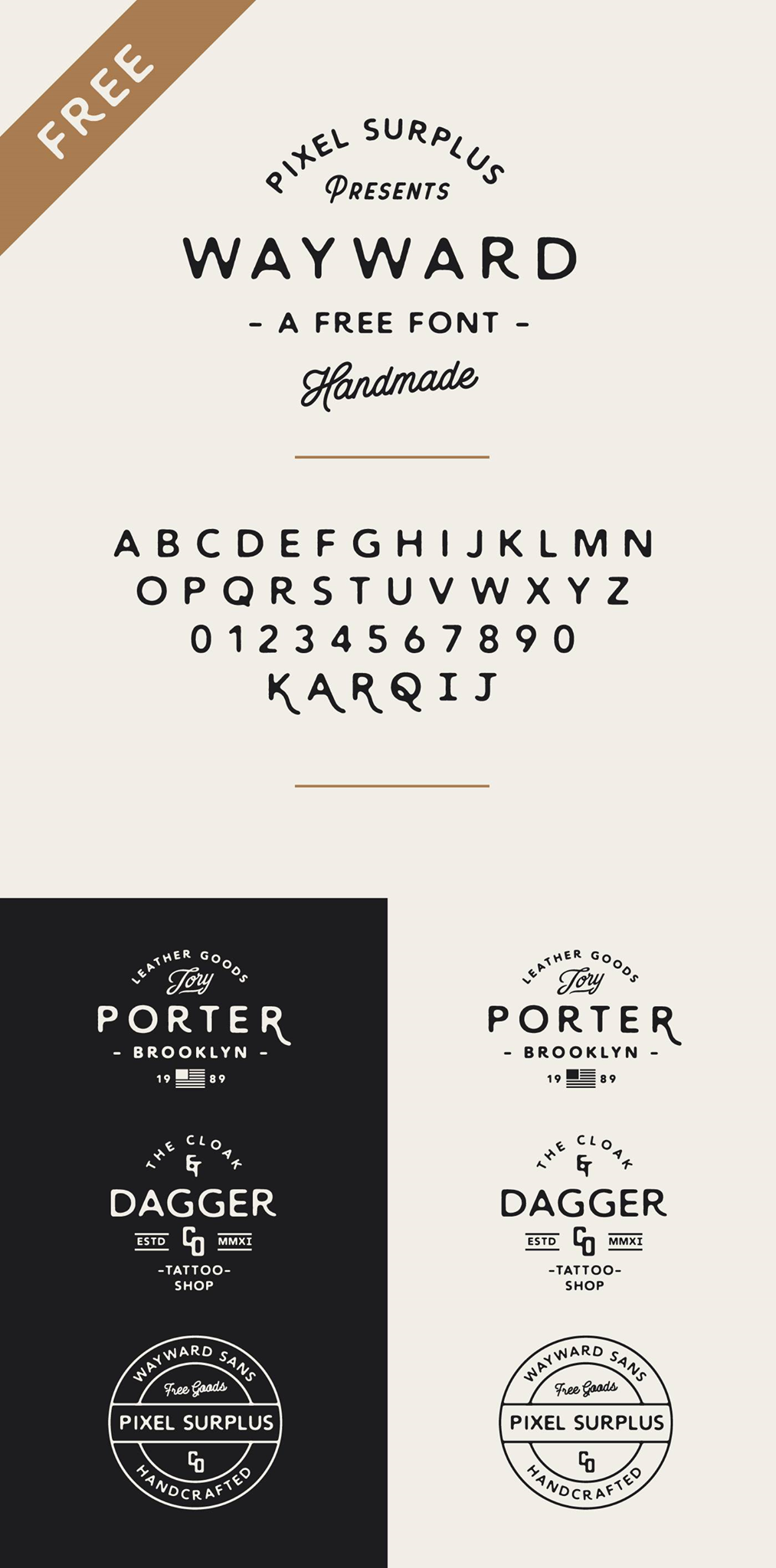
WAYWARD
We are extremely happy to announce our second free font collaboration with Hustle Supply Co. Introducing Wayward. Wayward captures the aesthetic found in popular hand lettering pieces and pairs very well with script lettering. Wayward is perfect for bringing a personalized hand lettered feel to your branding projects